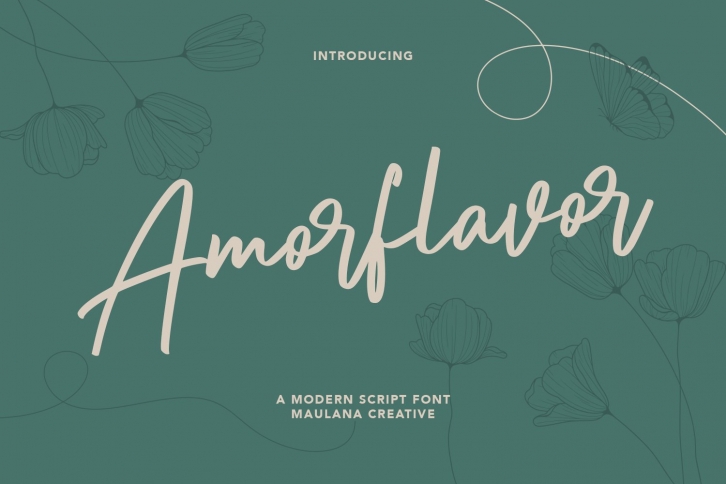
Amorflavor Script is a beautiful font that was designed by Maulana Creative. It's a great choice for designers and creatives who need such a font. It was released on April 8, 2021 and the file size is 6.40 MB. Amorflavor Script may give a more youthful, expressive and casual look to your project. It is a very beautiful, refined, elegant, and high-quality font.